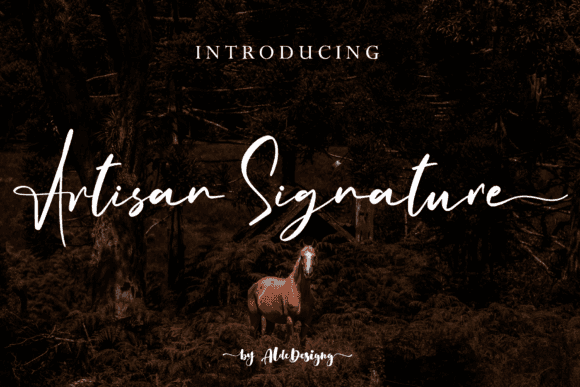
Artisan Signature Font for Invitations, Quotes and Greeting Cards
This download features a signature-style script font with graceful strokes and handcrafted elegance. Artisan Signature is ideal for wedding invitations, personal quotes, greeting cards, and other printable stationery. As a font entity, it offers smooth scalability and crisp results across both digital and print platforms.
Its organic flow and modern aesthetic make it perfect for heartfelt communication, feminine branding, and upscale DIY projects. It works beautifully in desktop publishing tools, cutting machines, and online design software.
- Wedding invitations and RSVP cards
- Printable quotes and affirmations
- Greeting cards and seasonal messages
- Thank you notes and personalized stationery
- Custom prints and framed calligraphy
- Elegant handwritten look with a natural signature feel
- Perfect for romantic, personal, and feminine designs
- Great for creating high-end printables and gifts